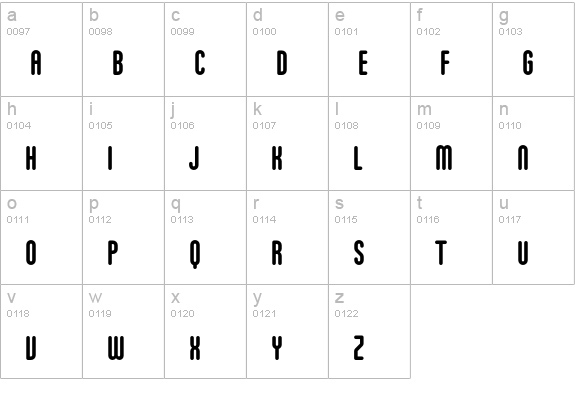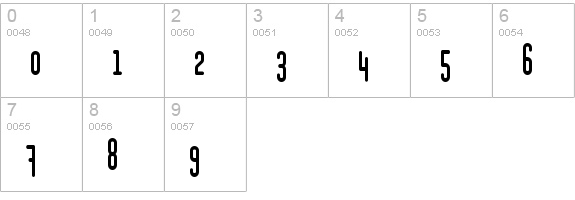
MartenCaps Font Details
Introducing MartenCaps, a stunning font that combines elegance and versatility in a seamless blend. Crafted with meticulous attention to detail, MartenCaps is the perfect choice for those seeking a font that truly stands out from the crowd. Featuring a unique combination of sharp lines and curvaceous elements, MartenCaps exudes a sense of modern sophistication. Its clean and precise letterforms make it highly legible, ensuring that your message will be conveyed with clarity and impact. But what truly sets MartenCaps apart is its availability as a free font. Yes, you read that right! MartenCaps is freely available to download at FontsMarket.com, making it accessible to designers, typographers, and creatives of all kinds. Whether you're working on a personal project or a professional endeavor, MartenCaps offers you the opportunity to elevate your designs without any financial constraints. With MartenCaps, you can effortlessly add a touch of elegance and professionalism to your typography. Its versatility allows it to seamlessly adapt to various design styles, from sleek and contemporary to vintage and retro. From logos to headlines, posters to invitations, MartenCaps will make a lasting impression on any project it graces. So why wait? Visit FontsMarket.com today and download MartenCaps for free. Discover the endless possibilities this font brings to your creative endeavors and unleash your imagination like never before. Embrace the freedom of expression with MartenCaps and let your designs speak volumes.